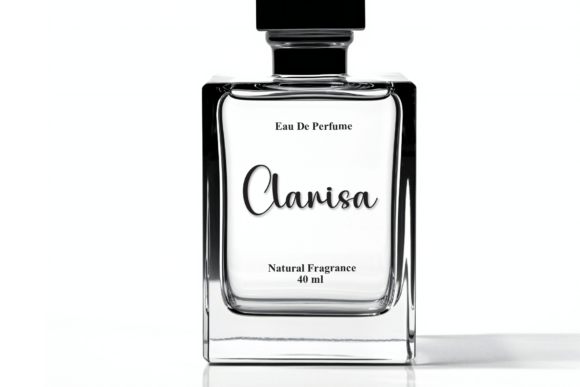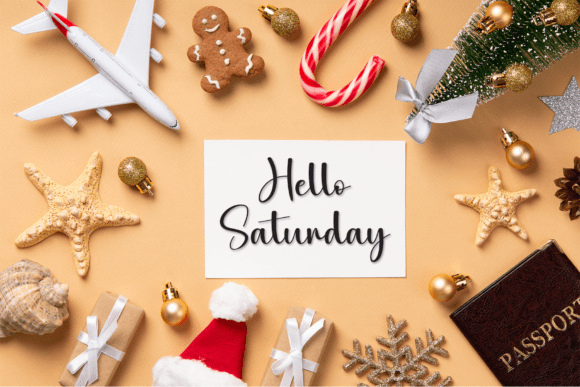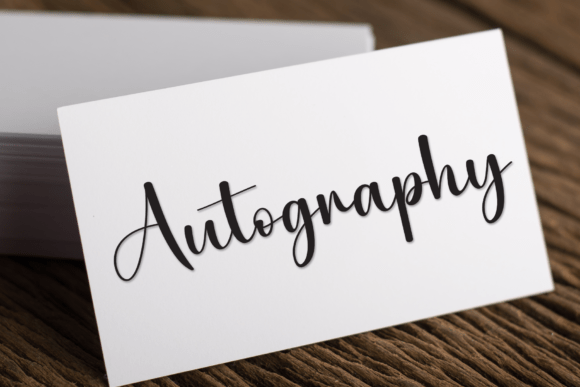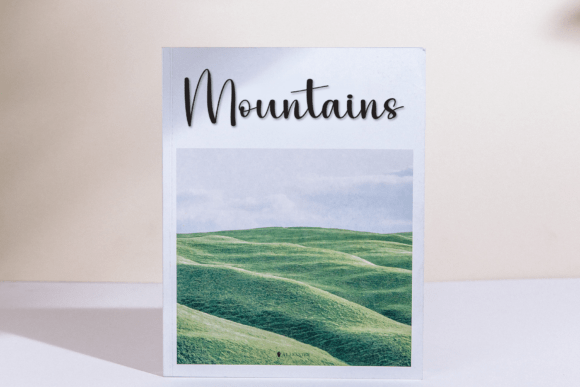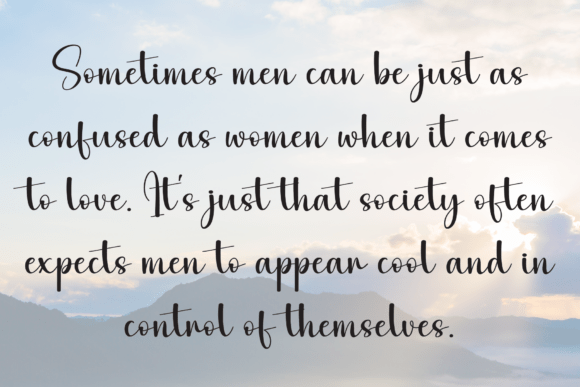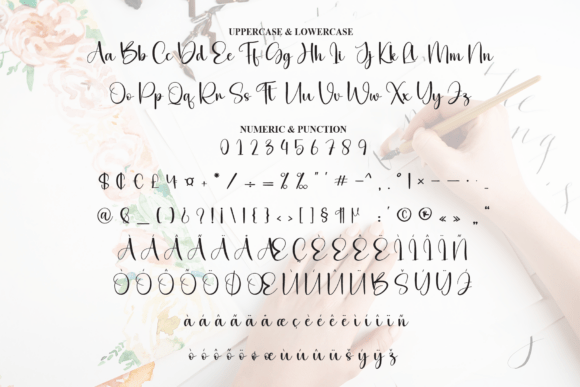
Unleash Your Inner Calligrapher
Have you ever found yourself mesmerized by the elegant strokes of a handwritten note or the intricate details of a beautifully crafted logo? Those moments of creative inspiration can spark a fire within us, driving us to bring our ideas to life. For designers, the pursuit of perfection is a constant quest, and the right tools can make all the difference.
That’s where our special creative product comes in – the Calligraphy Font. This latest style of letters is perfect for bringing a touch of elegance and sophistication to any project, from wedding invitations to social media post logos. With its versatility and ease of use, it’s no wonder why designers are flocking to this new font.
Key Features of Calligraphy Font
- Unique Characteristics: Features elegant, cursive, and connected letterforms, with subtle flourishes and swashes that evoke a sense of luxury and sophistication.
Calligraphy Font Review
I recently had the chance to work with the Calligraphy Font, and I must say it’s been a mixed bag. On one hand, I appreciate the ✨ elegant and refined feel it brings to any design project. It’s perfect for creating a sense of sophistication and luxury. The font is also highly versatile, working well for both digital and print materials.
Some of the key strengths of the Calligraphy Font include:
- ✨ Beautiful, flowing letterforms that add a touch of elegance to any design
- ✨ Highly customizable, allowing for easy adjustments to line width, spacing, and other key settings
However, I’ve also encountered some limitations with the Calligraphy Font, particularly when it comes to
⚠️ legibility at smaller font sizes. The intricate details of the font can become lost or difficult to read when scaled down, which may require additional adjustments to ensure readability.
Overall, I’d give the Calligraphy Font 4 out of 5 stars. While it’s not perfect, its unique aesthetic and high level of customization make it a valuable addition to any designer’s toolkit. With some careful planning and adjustment, the Calligraphy Font can add a touch of sophistication and elegance to even the most complex designs.
Calligraphy fonts are ideal for:
- Special occasion cards and gifts
- Business logos and branding
- Artistic and creative projects